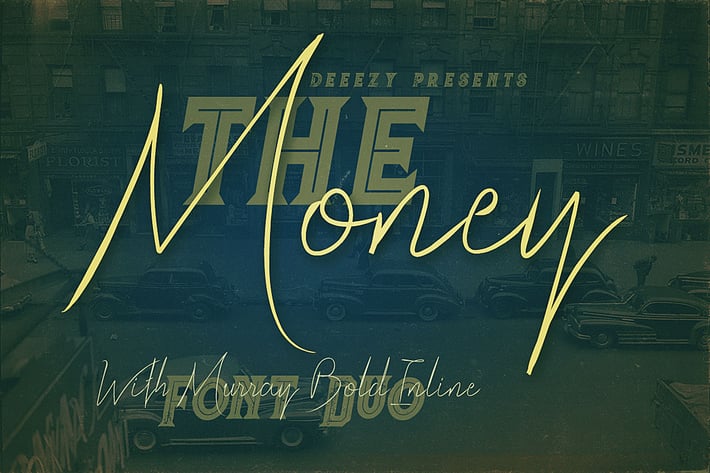
The Money Font Duo
Cool handwritten & creative style font duo for your new projects. First font is modern & thin line style handwritten script font with multi language support and lot of stylistic alternates. Second font is inline style display font with regular & grunge version (without multi language support).